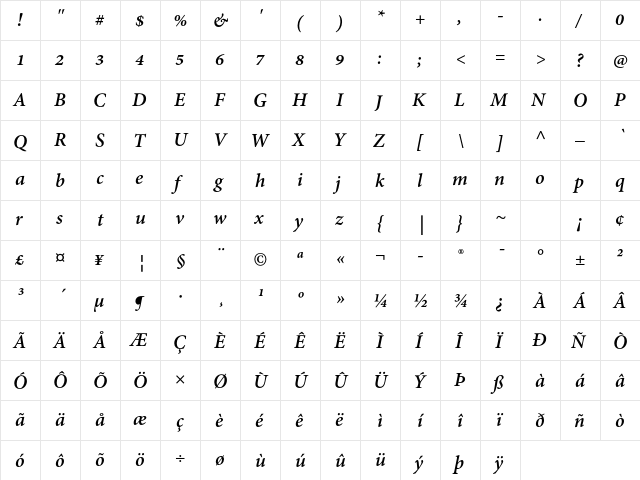
Adobe Thai Bold Italic
| Foundry | Tiro Typeworks for Adobe Systems Incorporated. |
| Designer | Fiona Ross, John Hudson and Tim Holloway (Thai) and Robert Slimbach (Latin) |
Design Context for Adobe Thai Typeface
Adobe Thai takes a measured approach to typography — its balanced proportions and neutral character make it a reliable workhorse for both digital and print work. The dynamic lean of this cut emphasises speed and emphasis in any layout. Its bold stroke weight gives it real presence on the page.
Pro Tip: Use Adobe Thai for emphasis, pull quotes, and subheadings where its slanted energy can add rhythm to the layout.